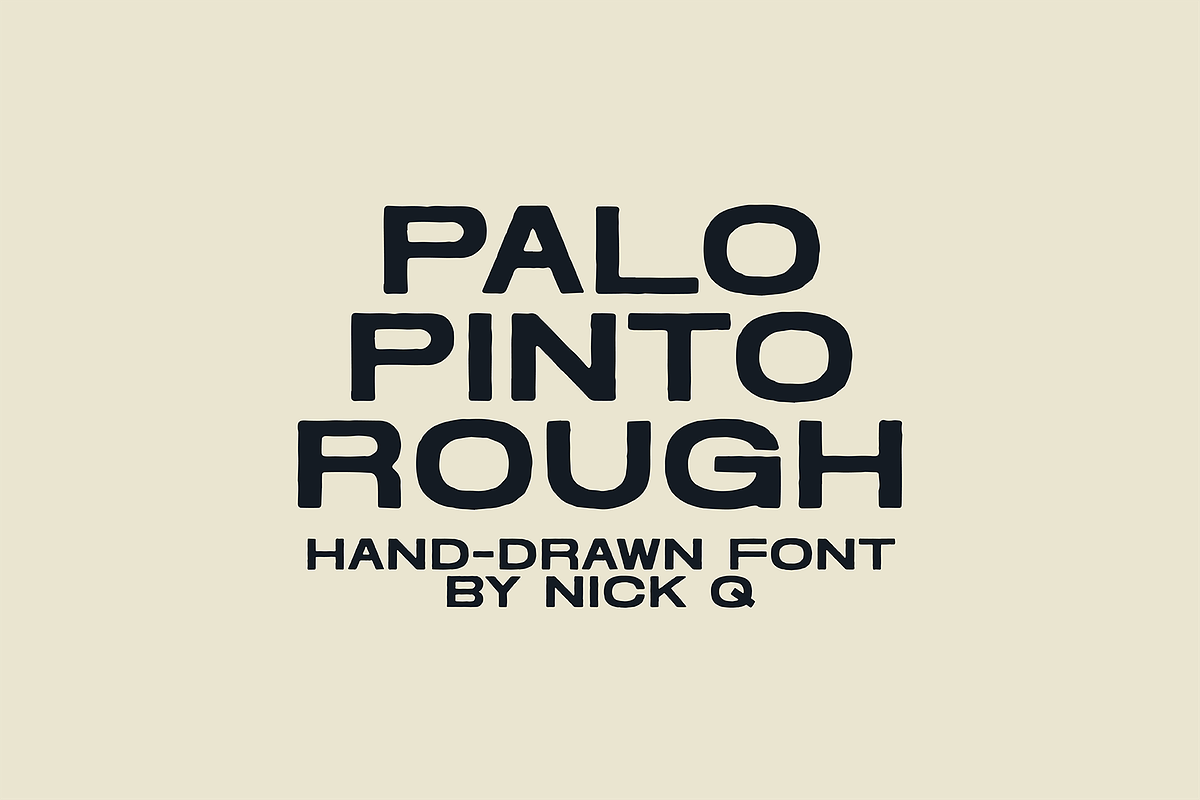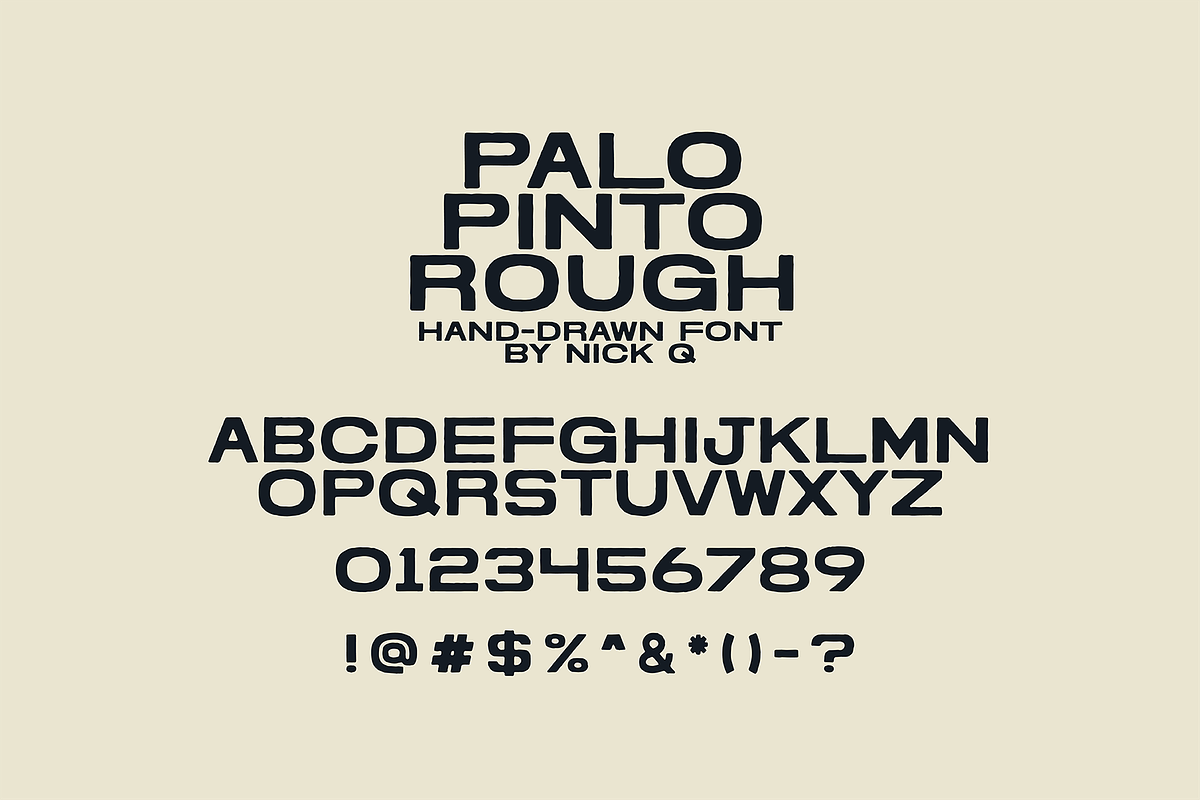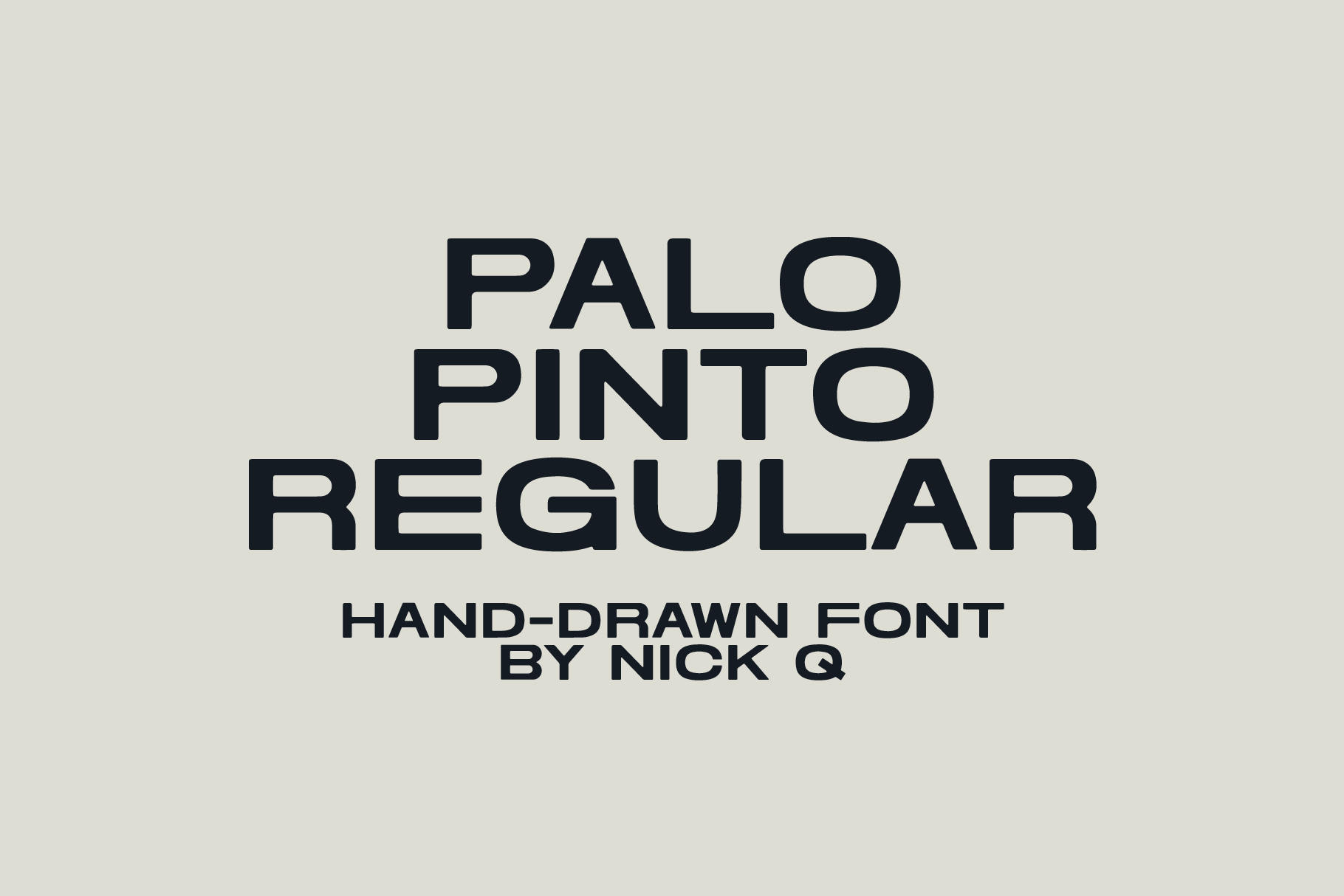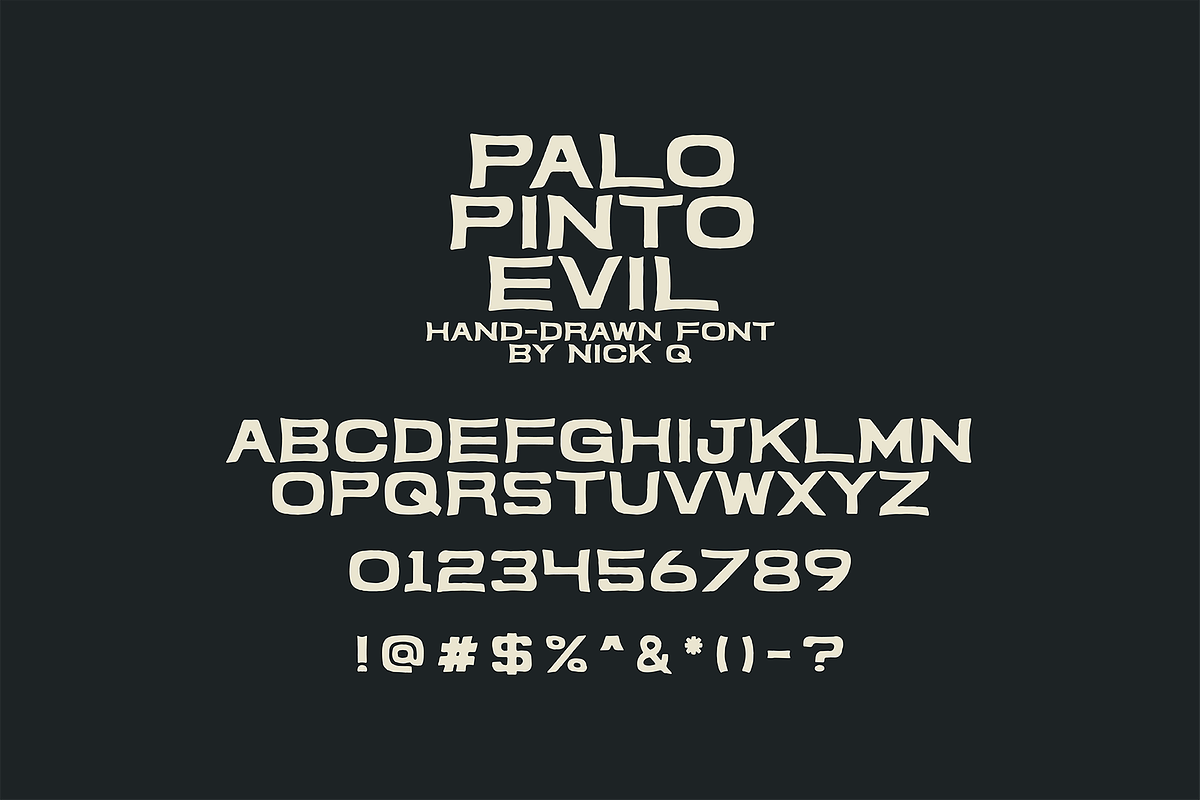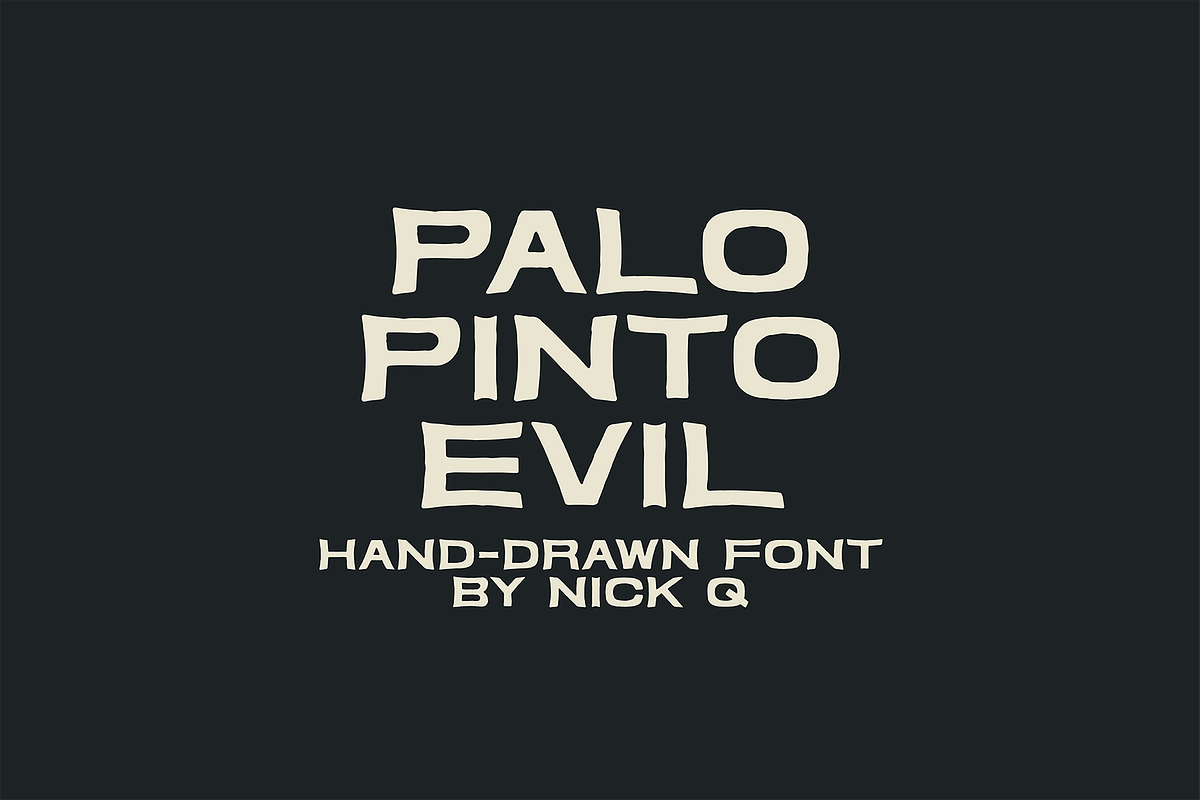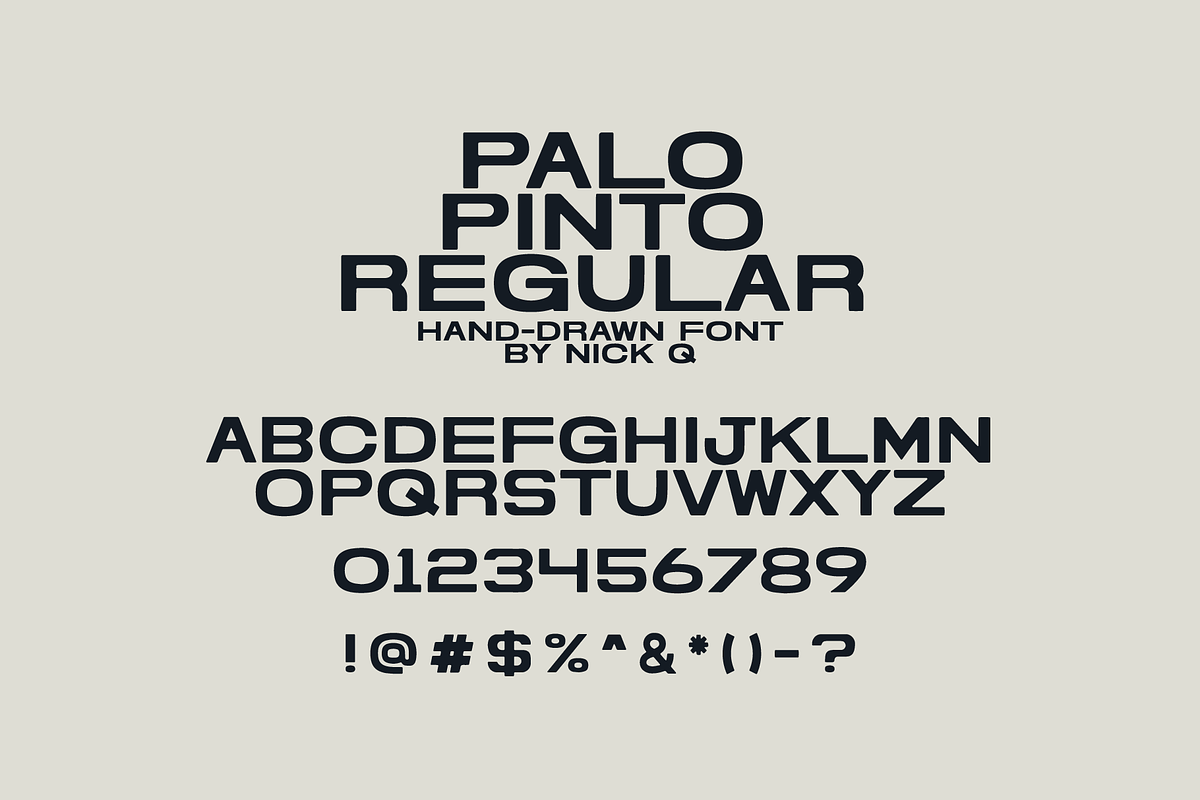
Palo Pinto Hand Drawn Font
This is my brand new font Palo Pinto, inspired by my Thanksgiving road trip. This has three versions, Regular, Rough & Evil.